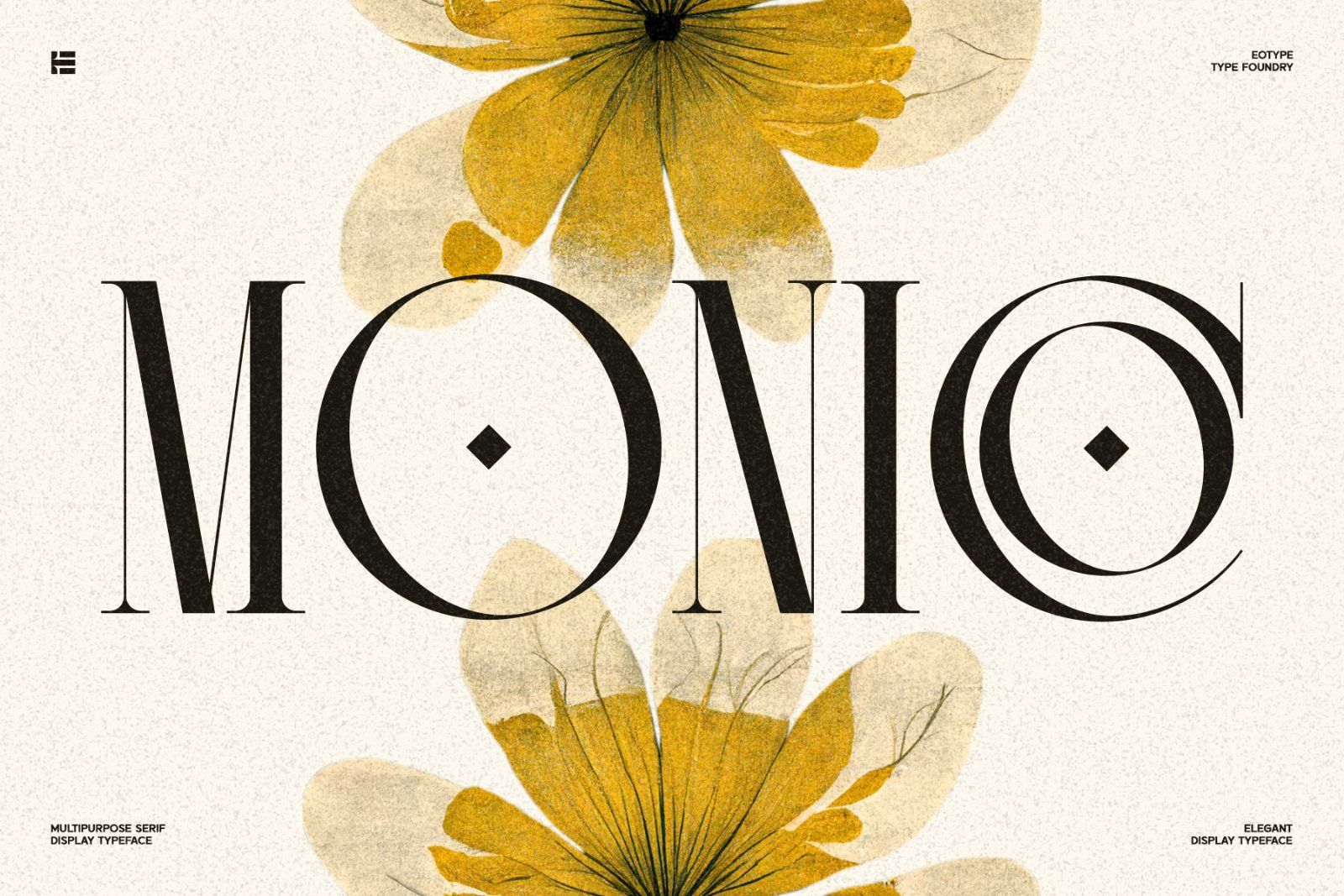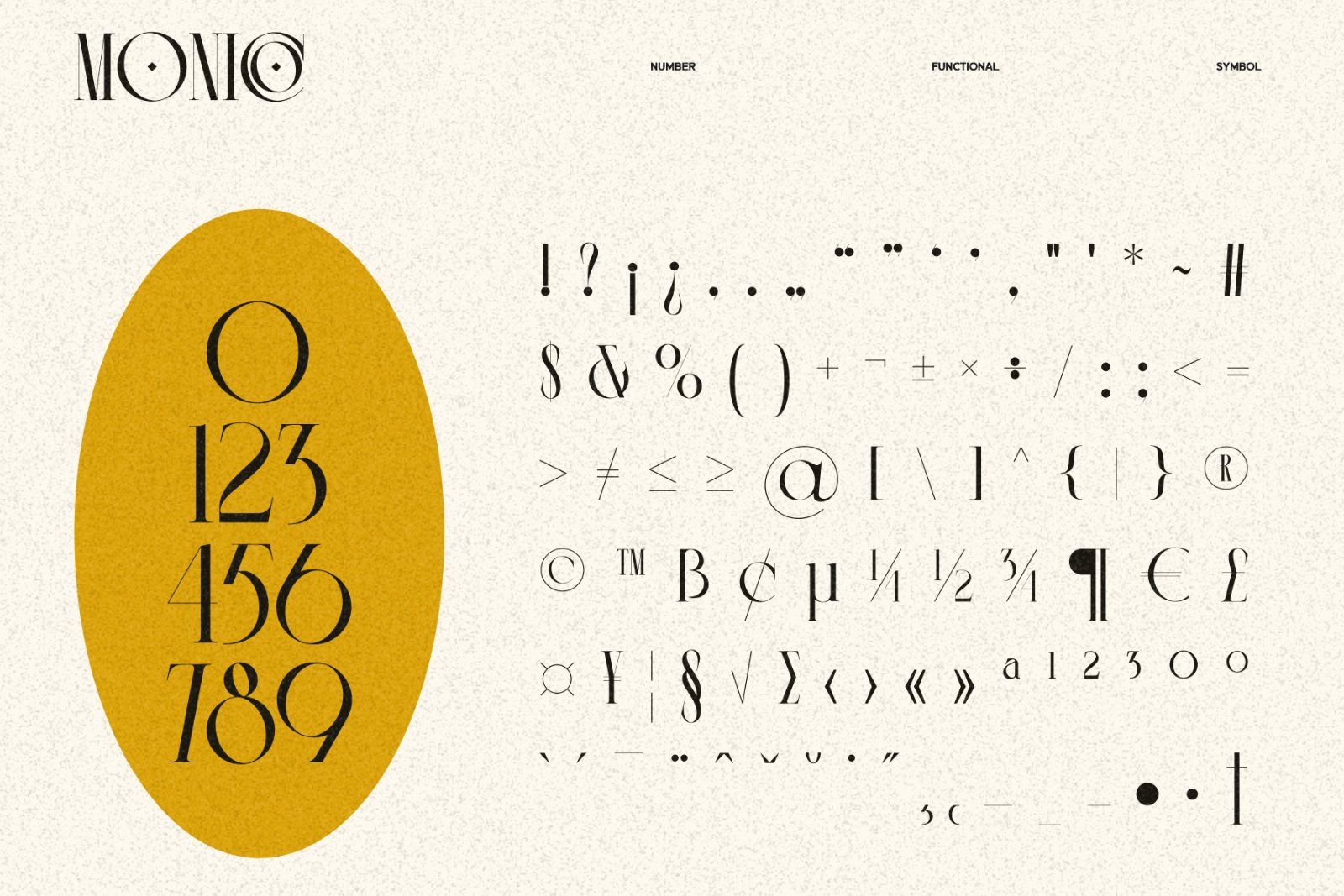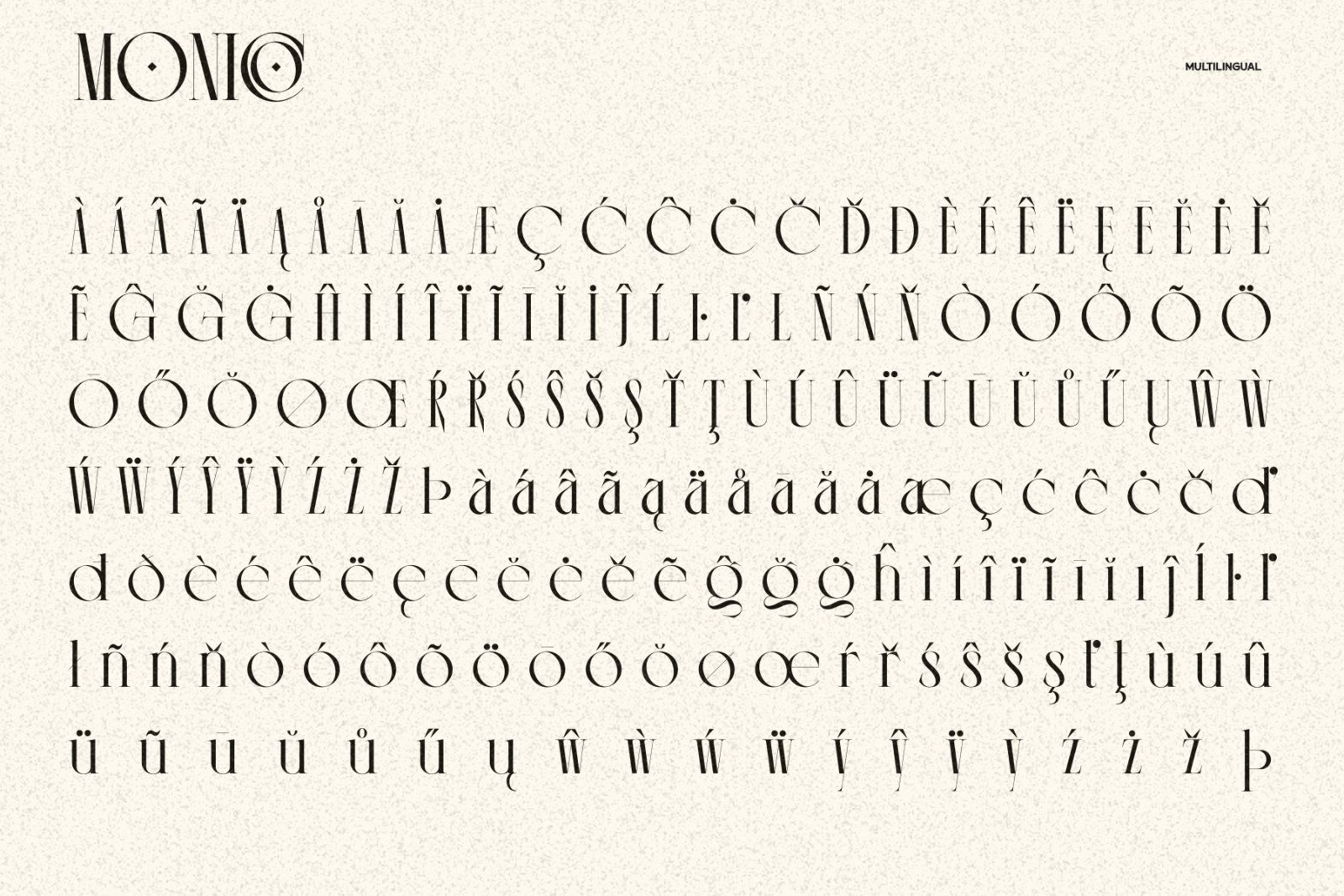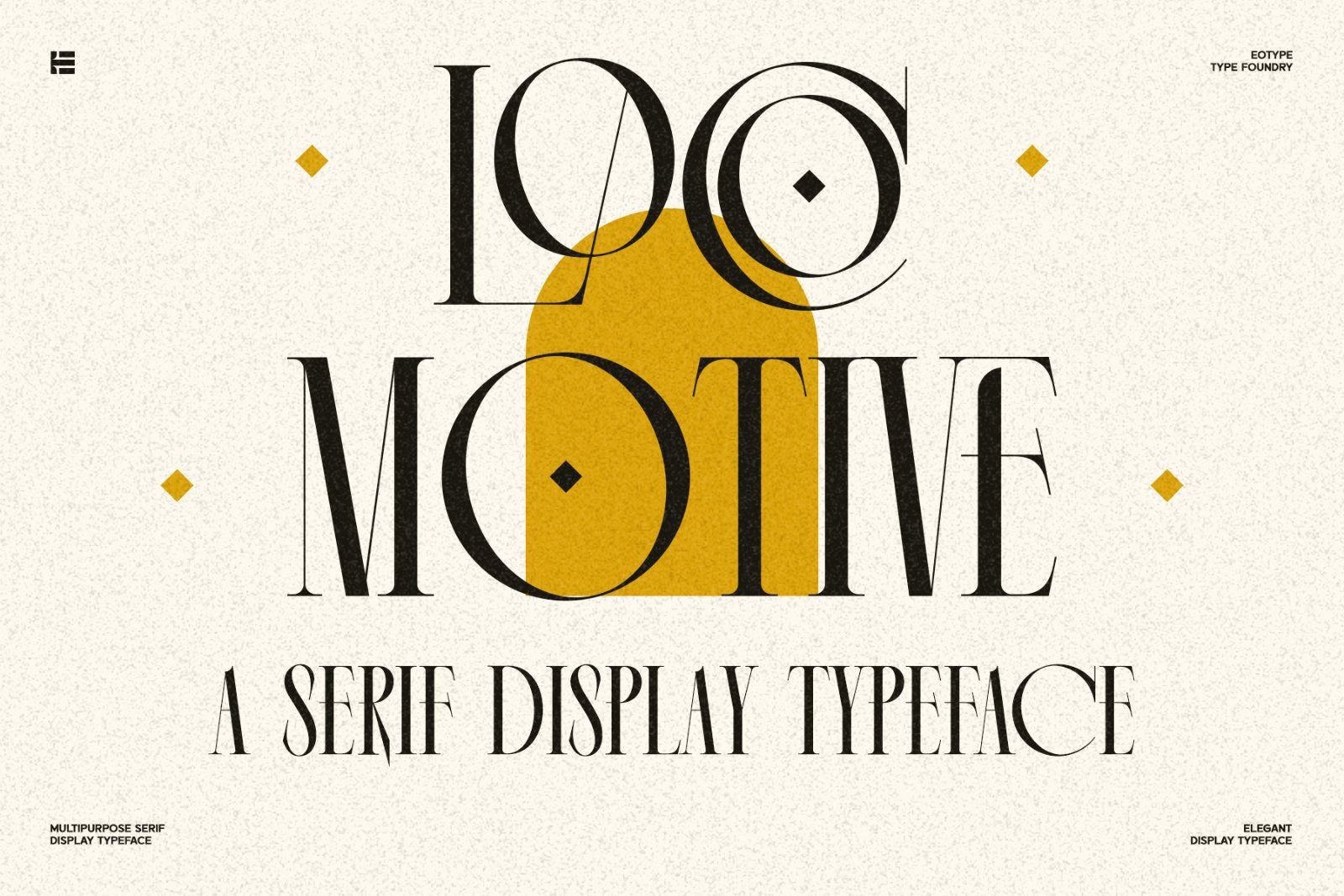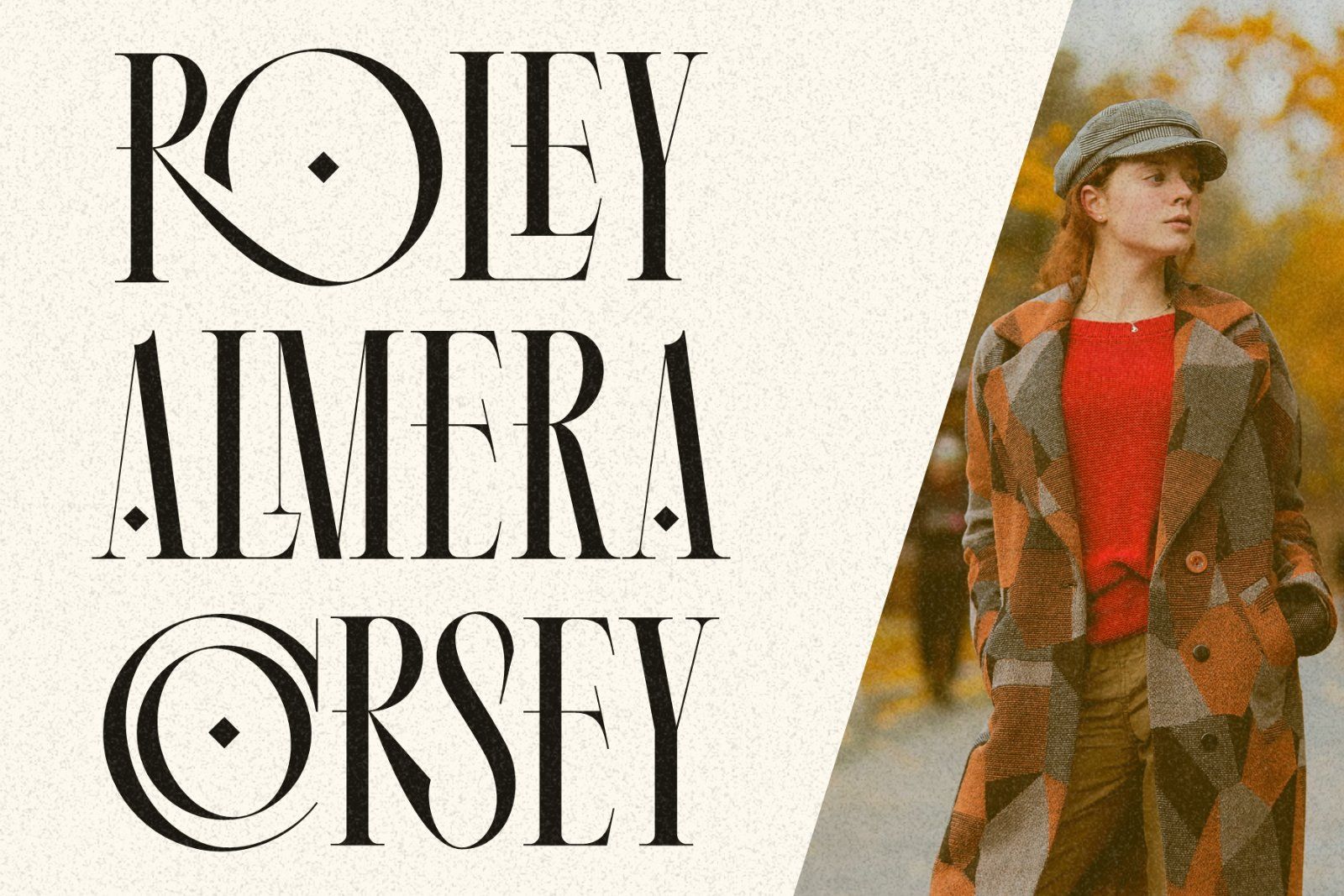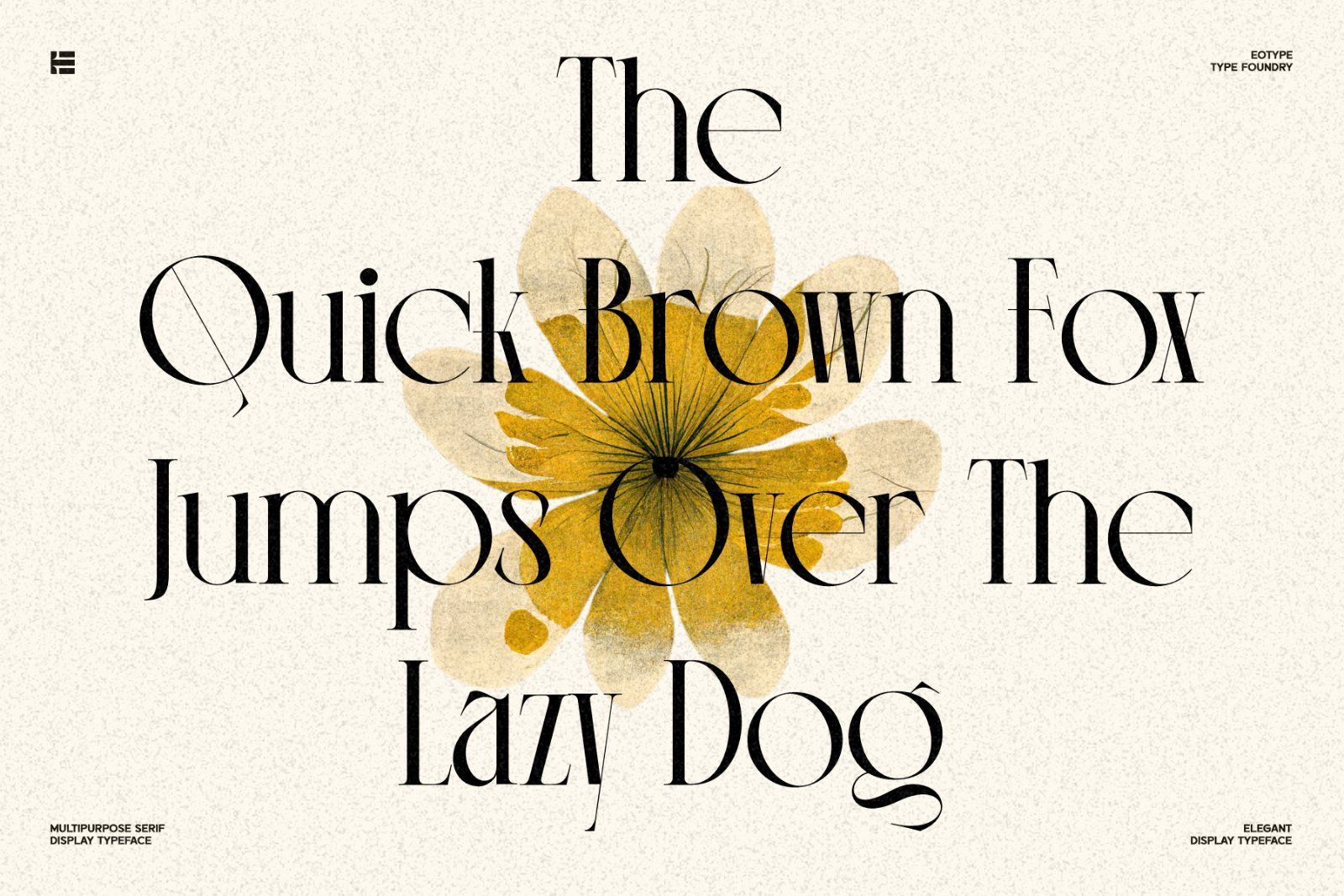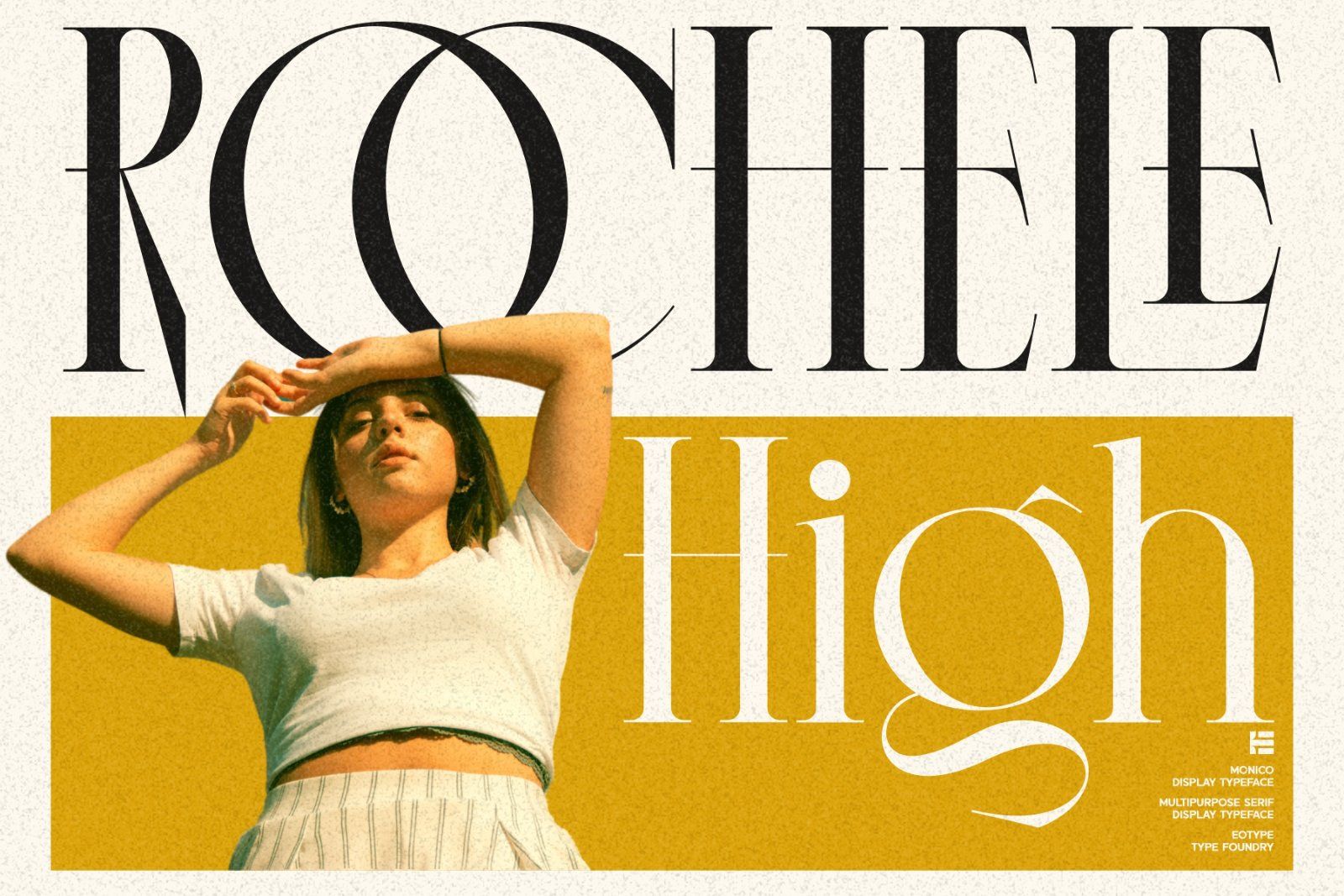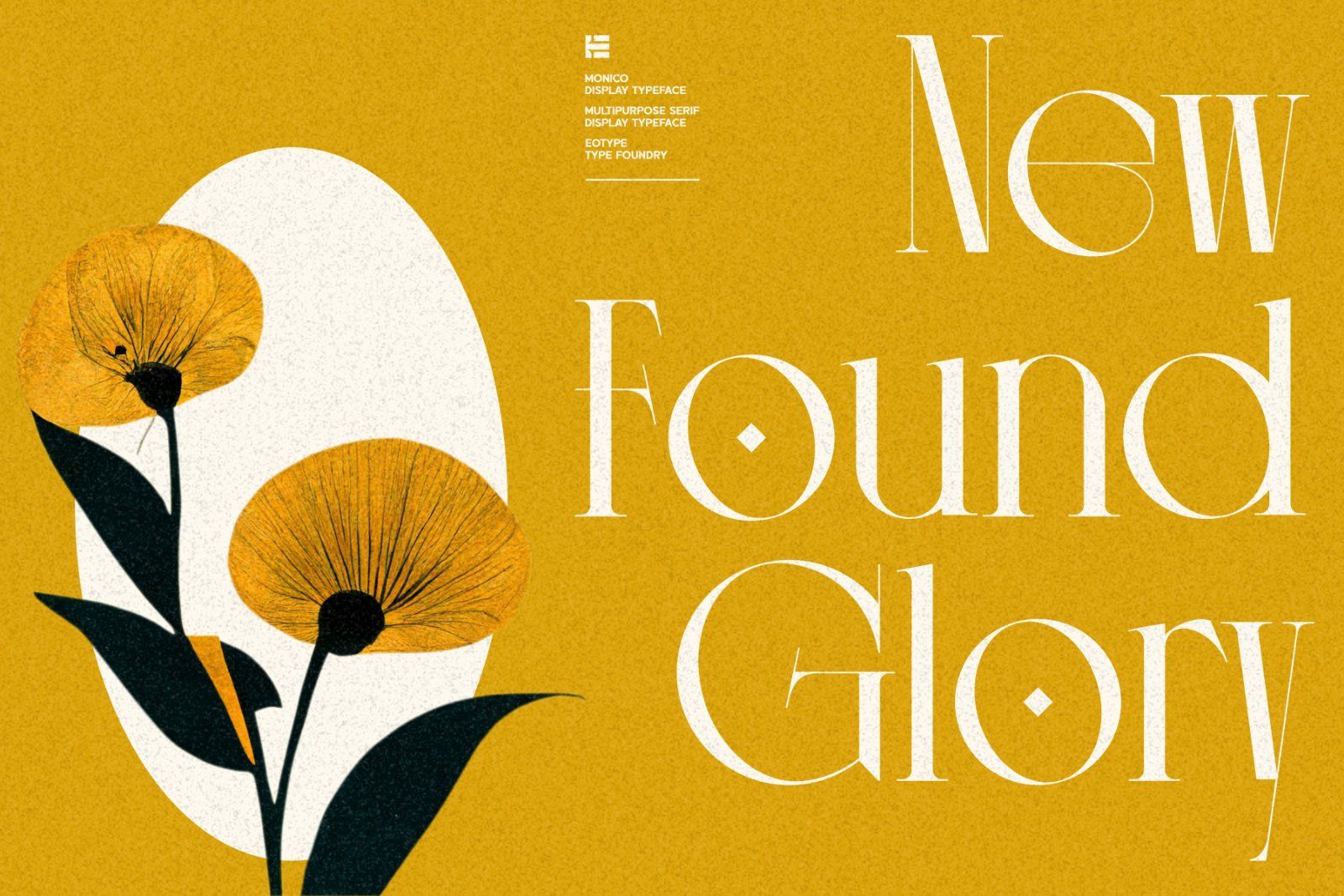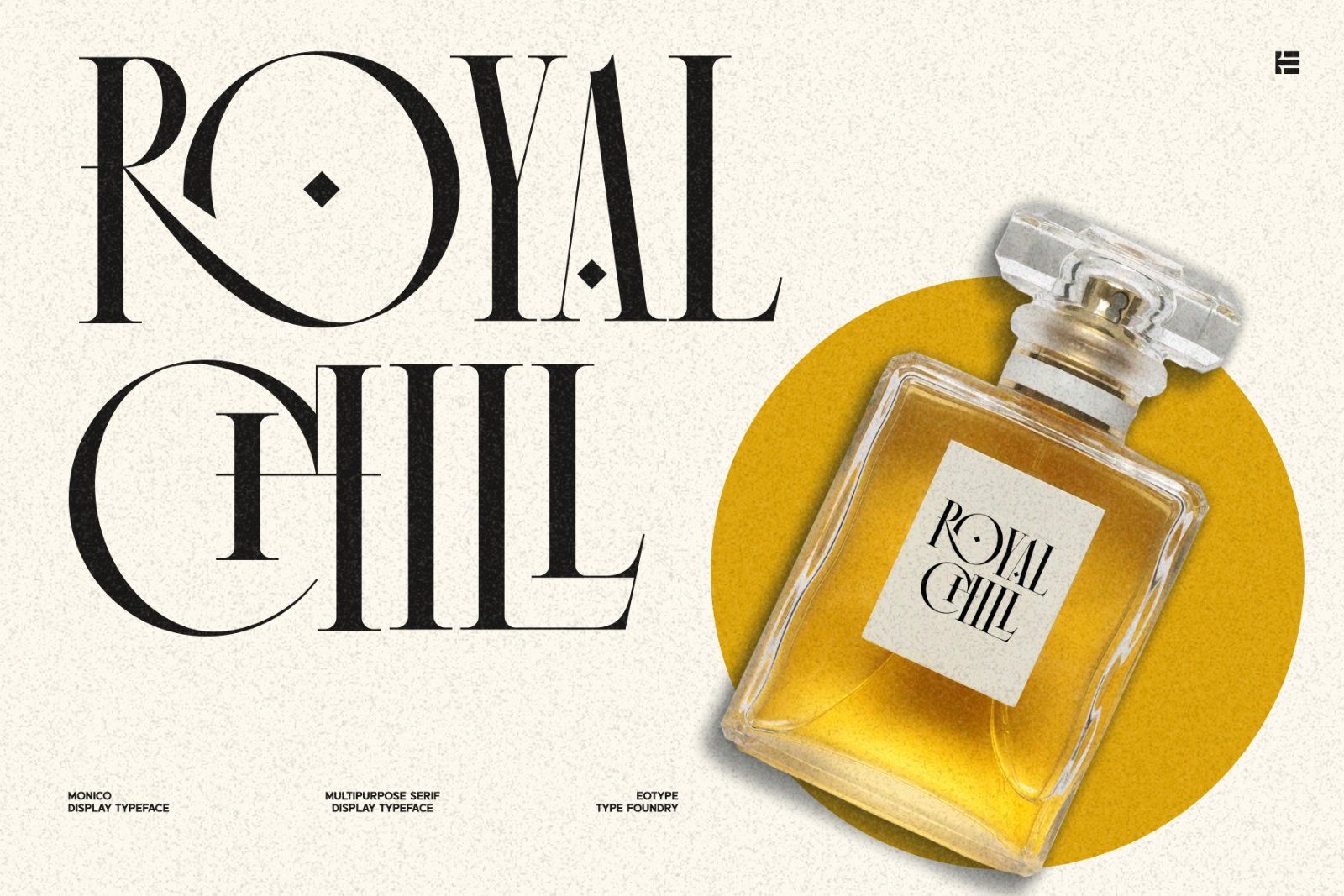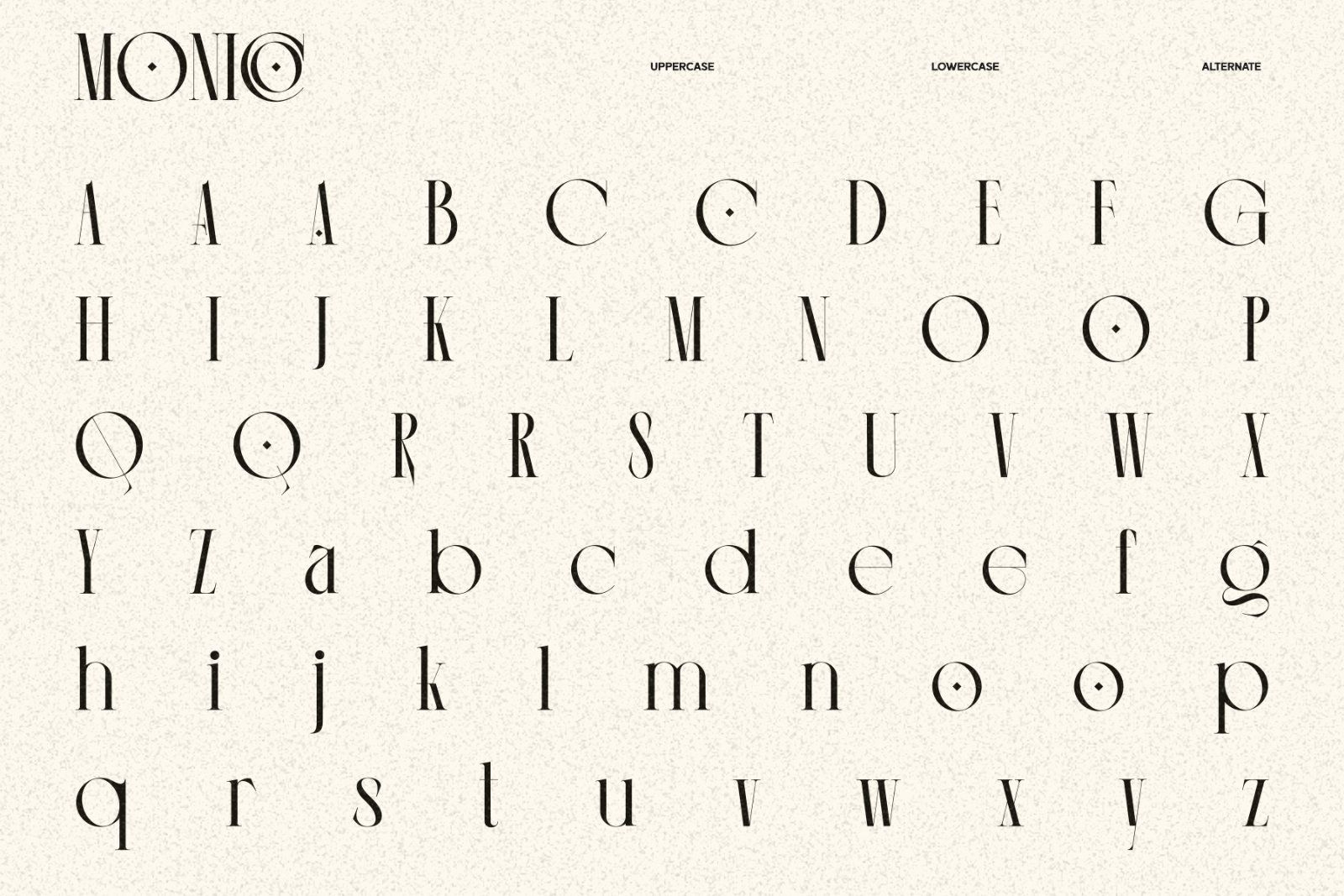
Monico is a new condense font that is elegance and versatility. This unique font is perfect for creating beautiful logotypes, stunning magazine designs and more. This font can be your solution in completing projects that are equipped with various alternate and ligature collections.